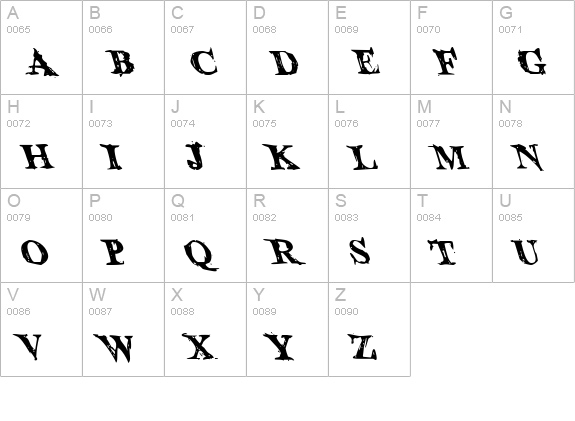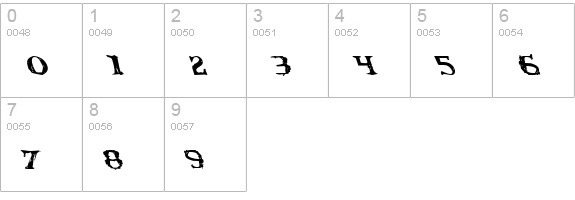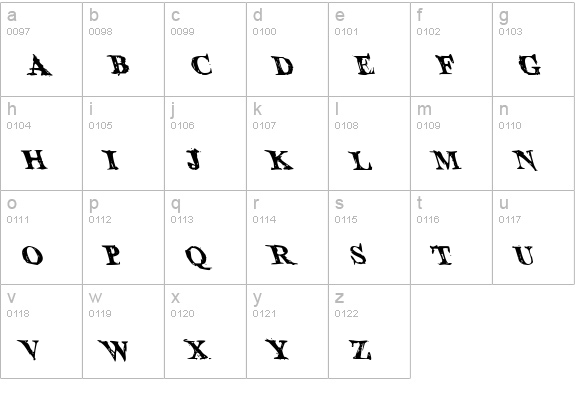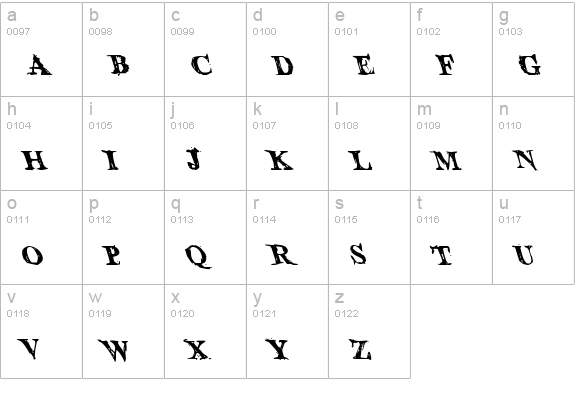
Blood Crow Leftalic is a striking and bold font that exudes a sense of power and mystery. With its sharp angles and unique design, this font is perfect for projects that require a touch of edginess and sophistication. Whether you are creating posters, logos, or social media graphics, Blood Crow Leftalic will make your text stand out and leave a lasting impression. What makes this font even better is that it is available for free download at FontsMarket.com. Now you can add a touch of elegance to your designs without having to worry about the cost. Don't miss out on the opportunity to elevate your projects with the eye-catching Blood Crow Leftalic font. Download it today and unleash your creativity!